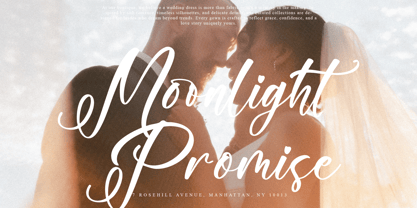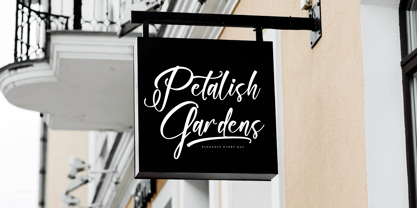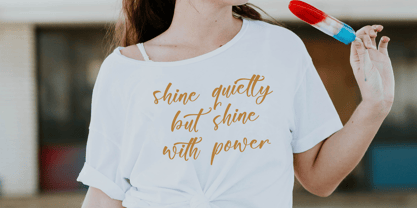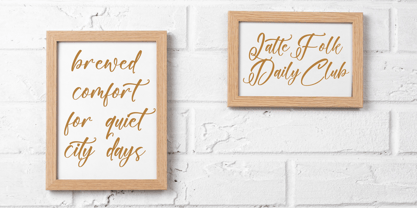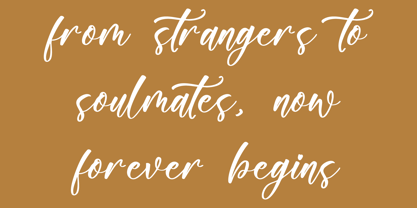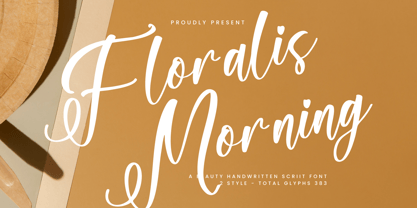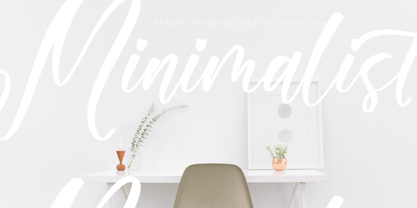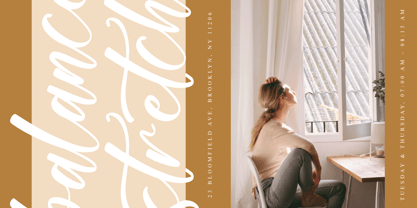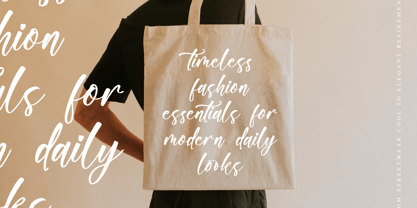
Floralis Morning
by Integritype
The Floralis Morning Font Family was designed by Ranndy Rizky Febrian and published by Integritype. Floralis Morning contains 2 styles and family package options. More about this family
Floralis Morning - A Beauty Handwritten Script Font, from Integritype Studio, perfect for any project like: logos, branding projects, homewares designs, product packaging, mugs, quotes, posters, shopping bags, t-shirts, covers books, business cards, invitation cards, greeting cards, labels, photography, watermarks, special events and all your other luxury projects that require a premium taste.
Designers: Ranndy Rizky Febrian
Foundry: Integritype